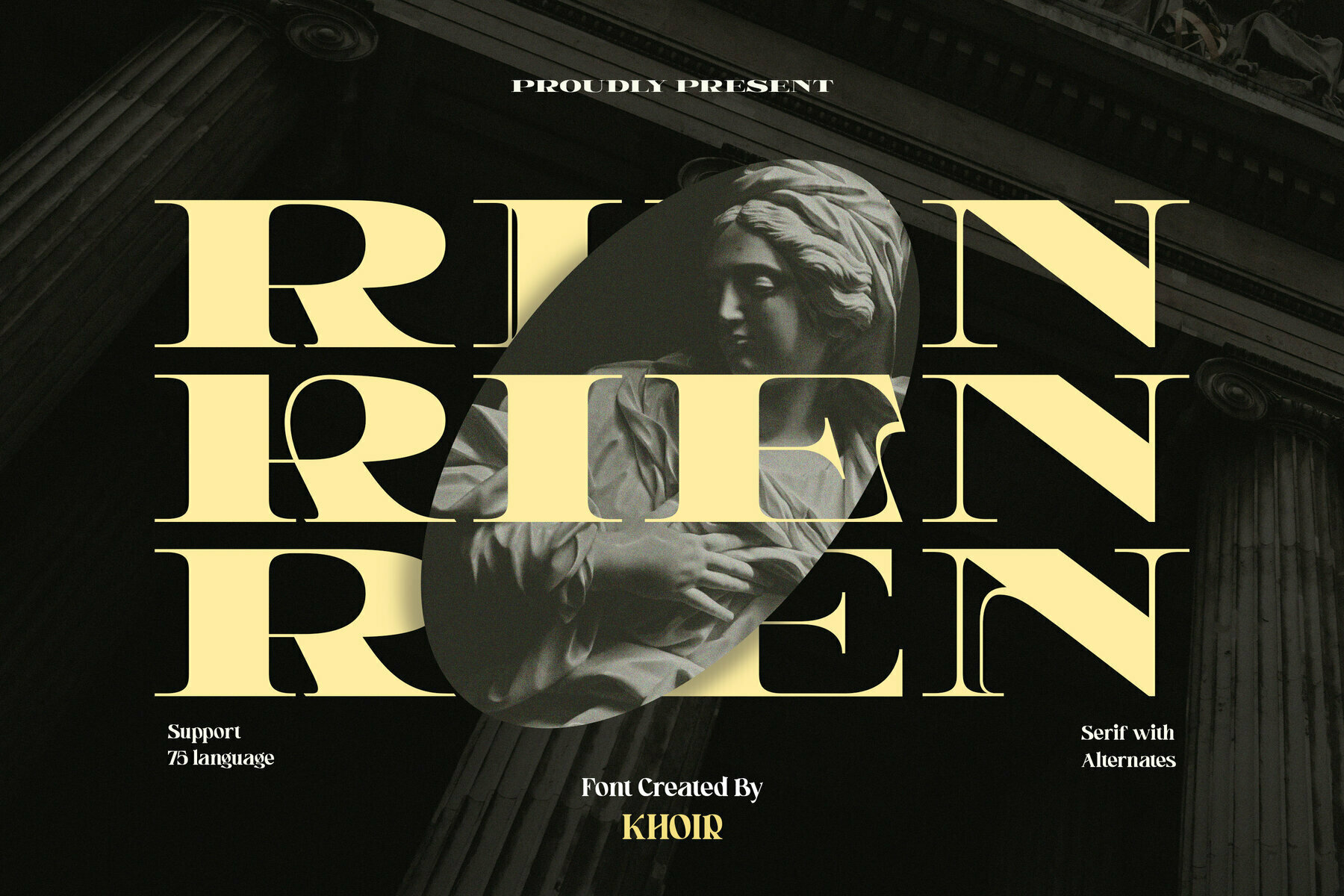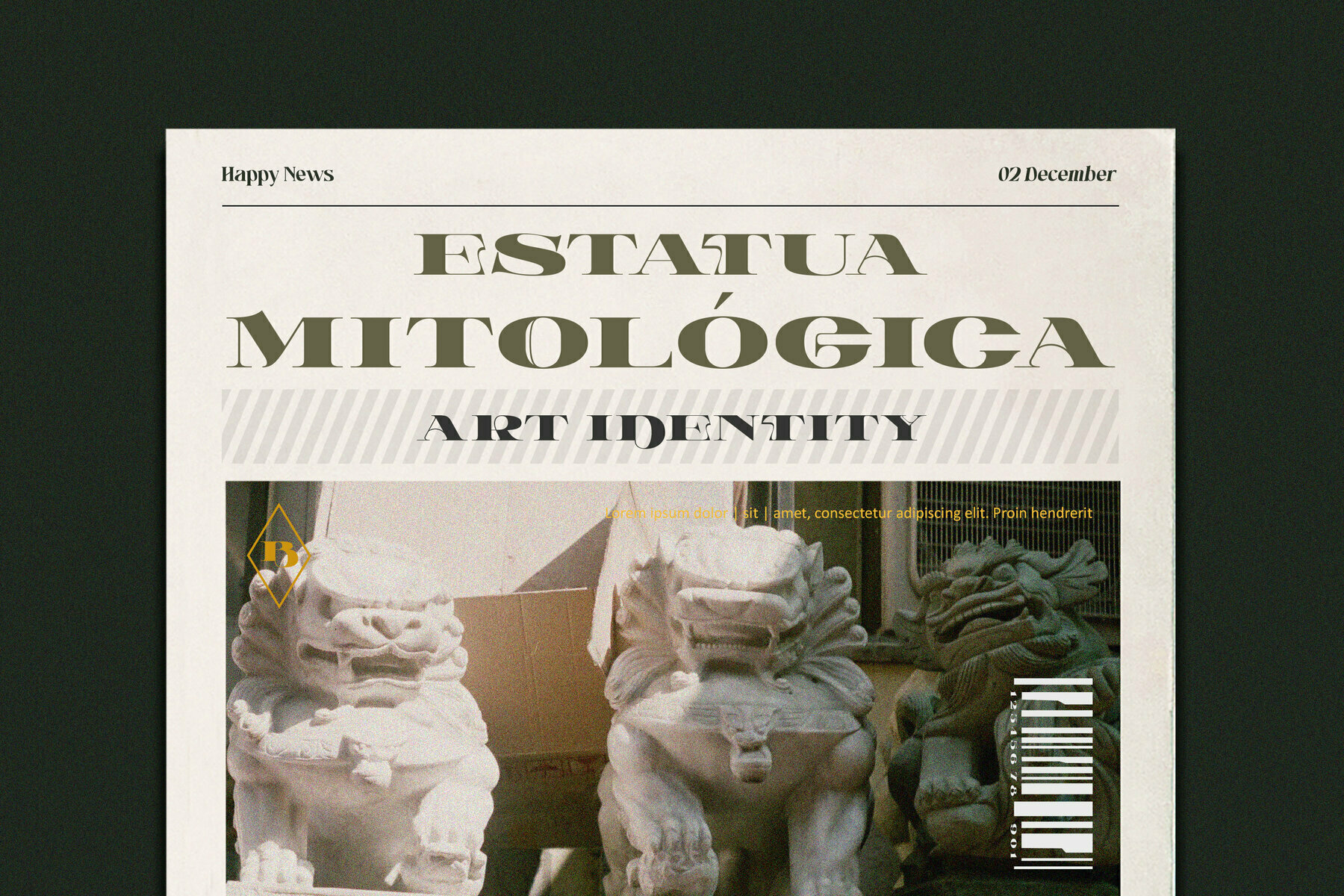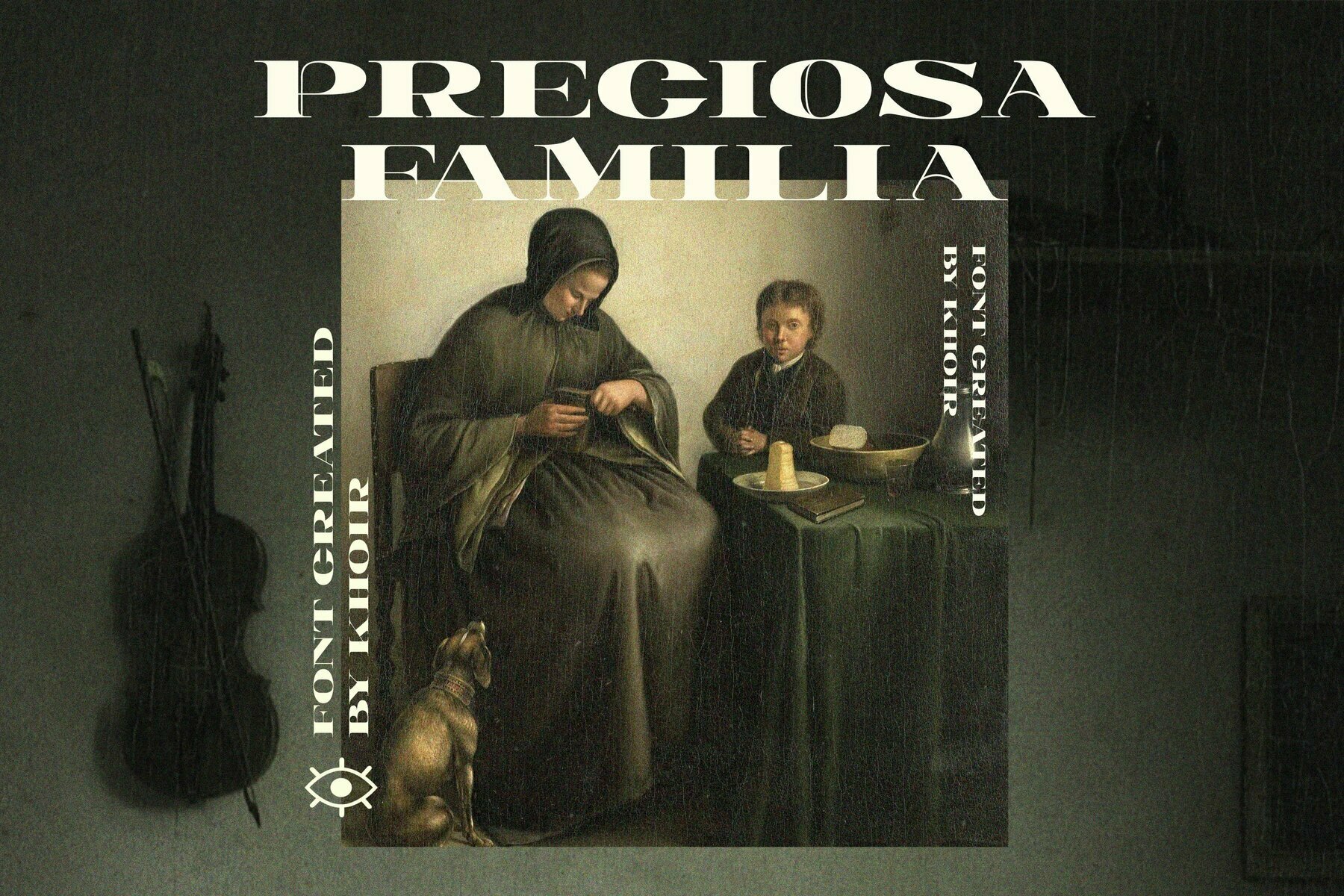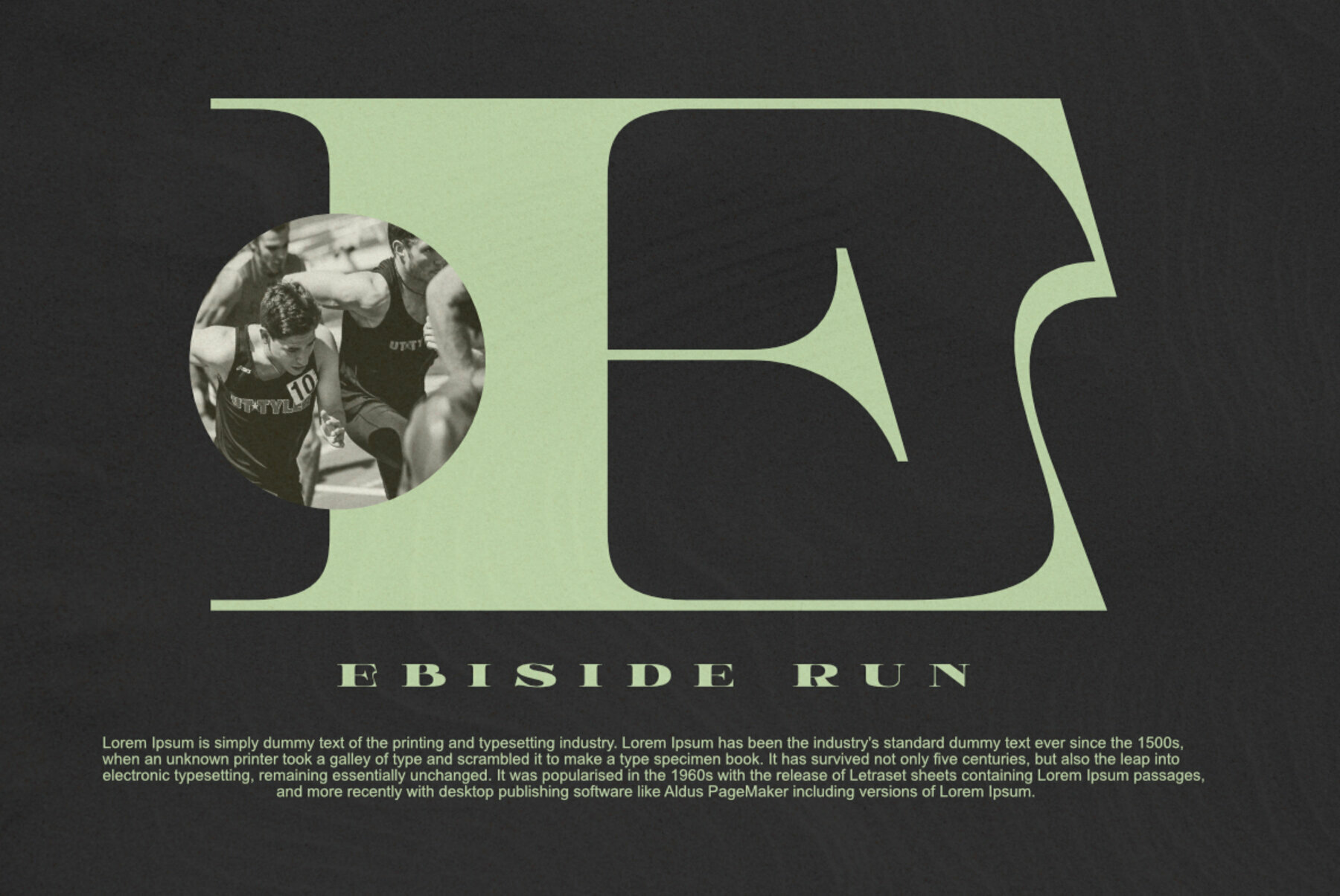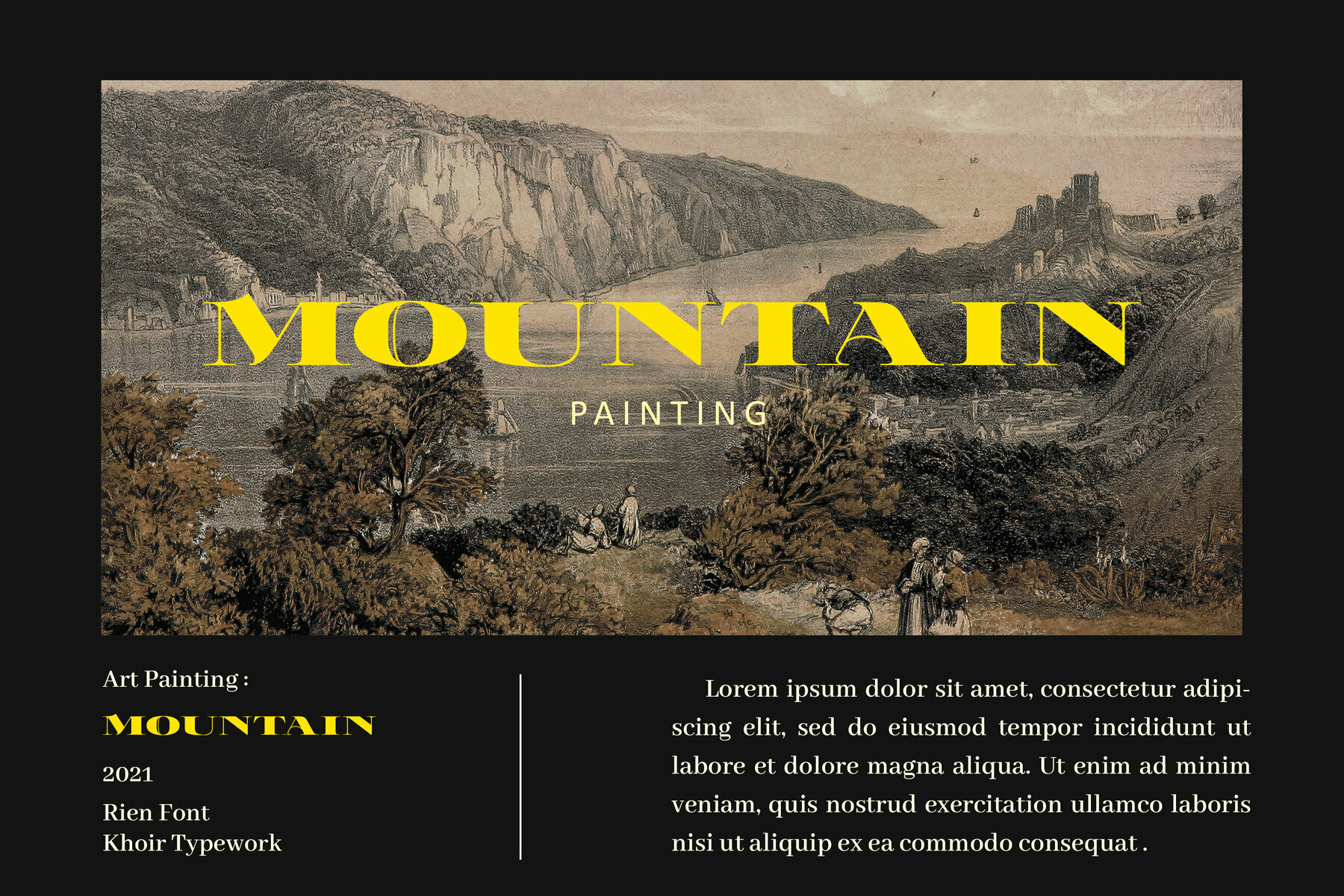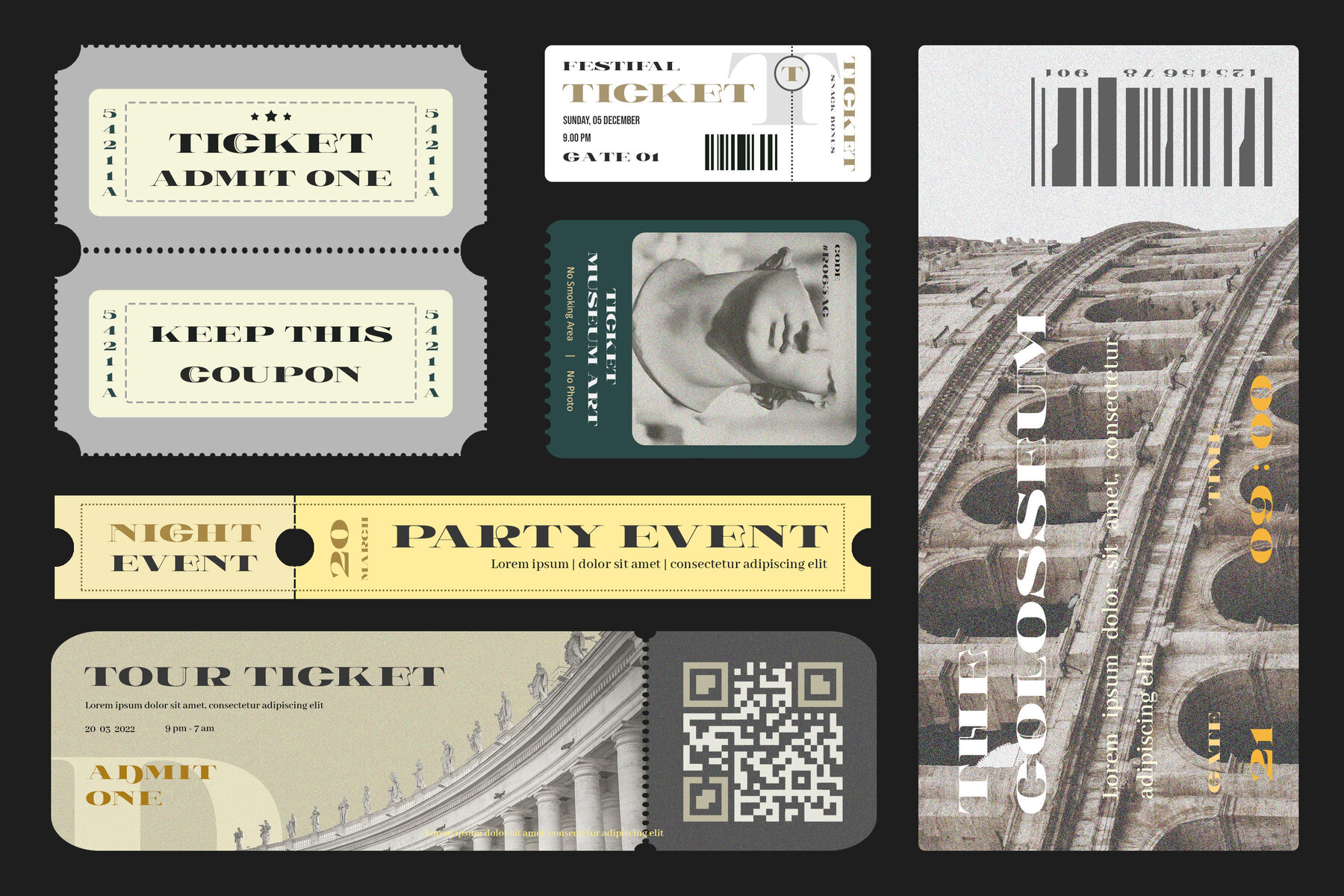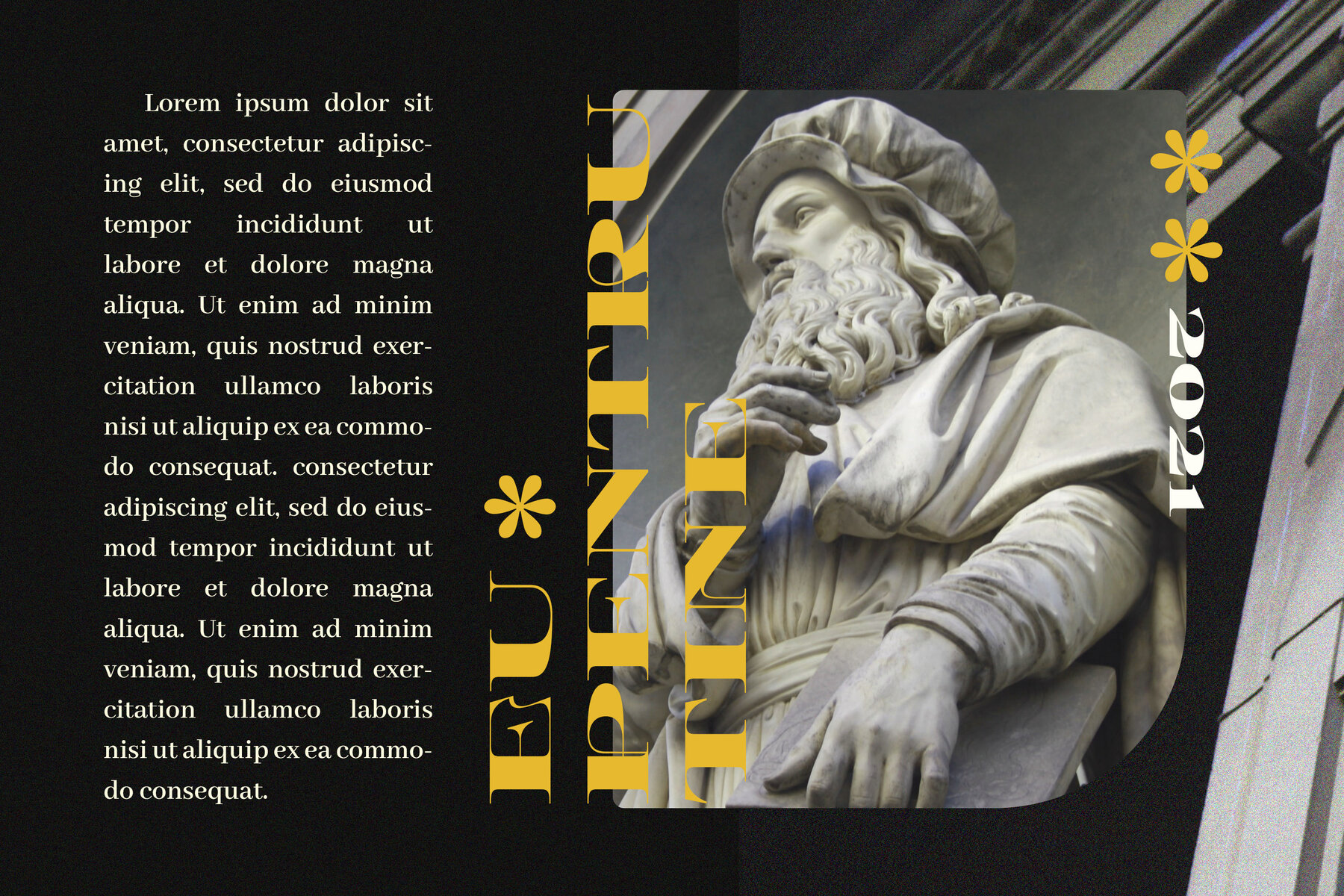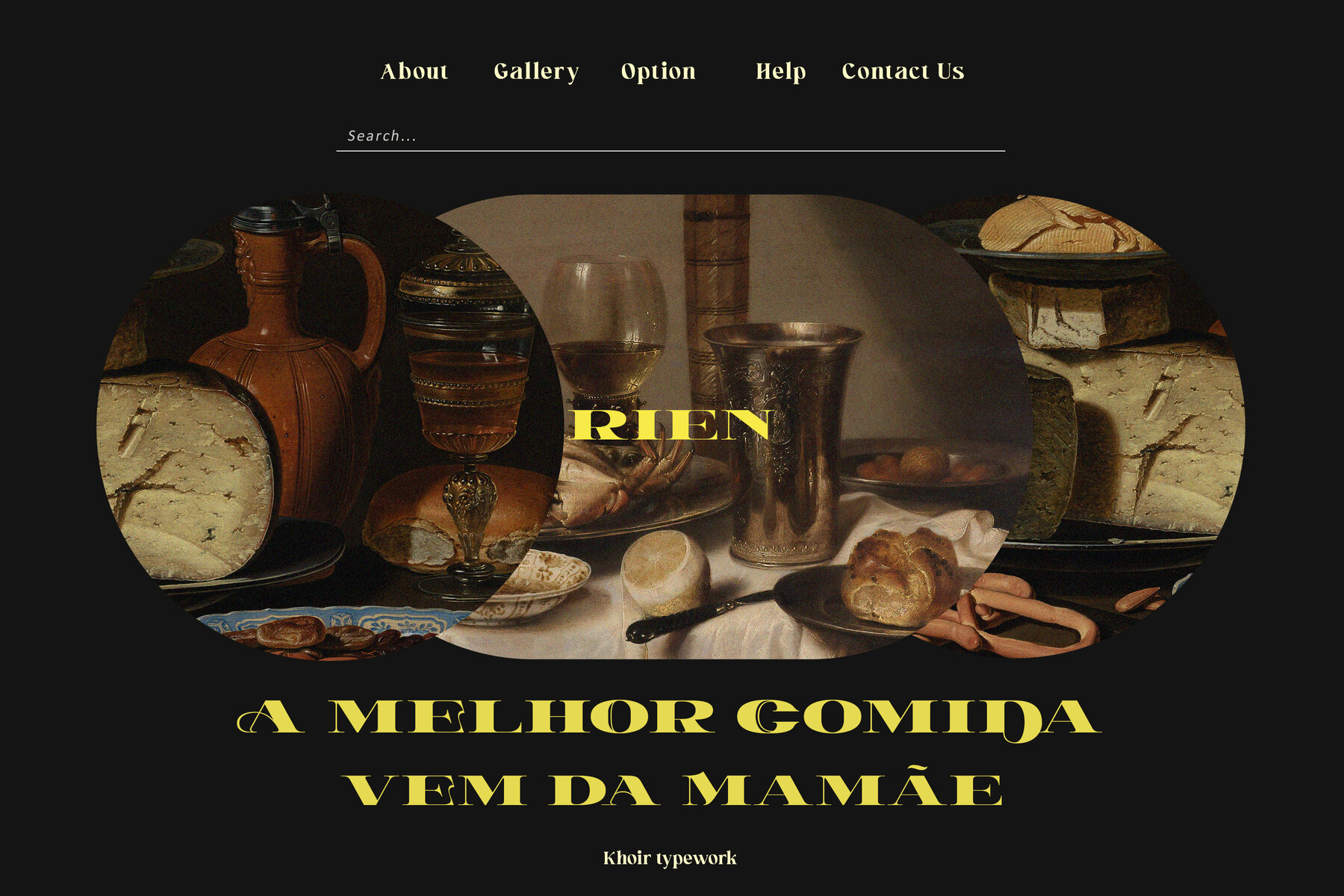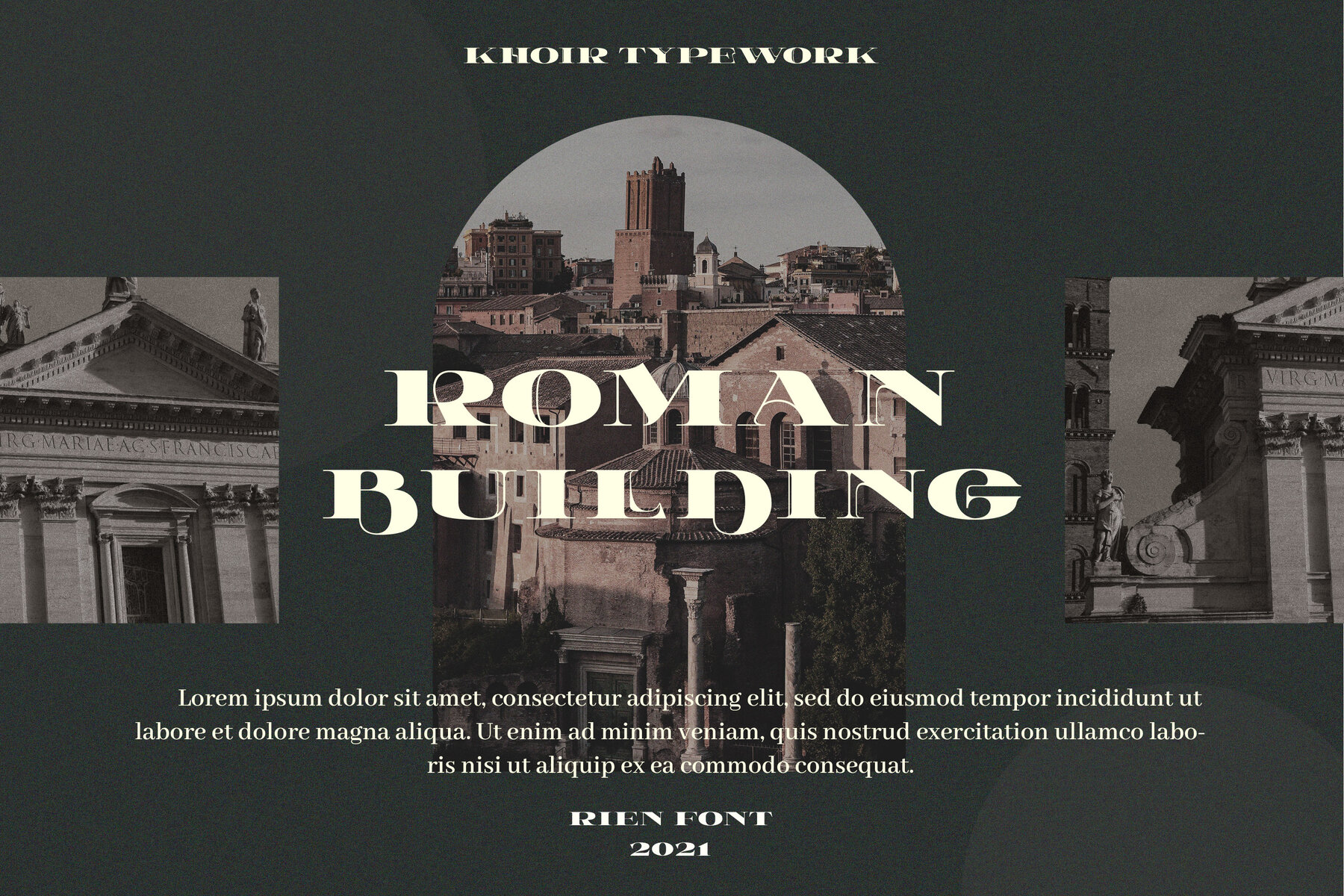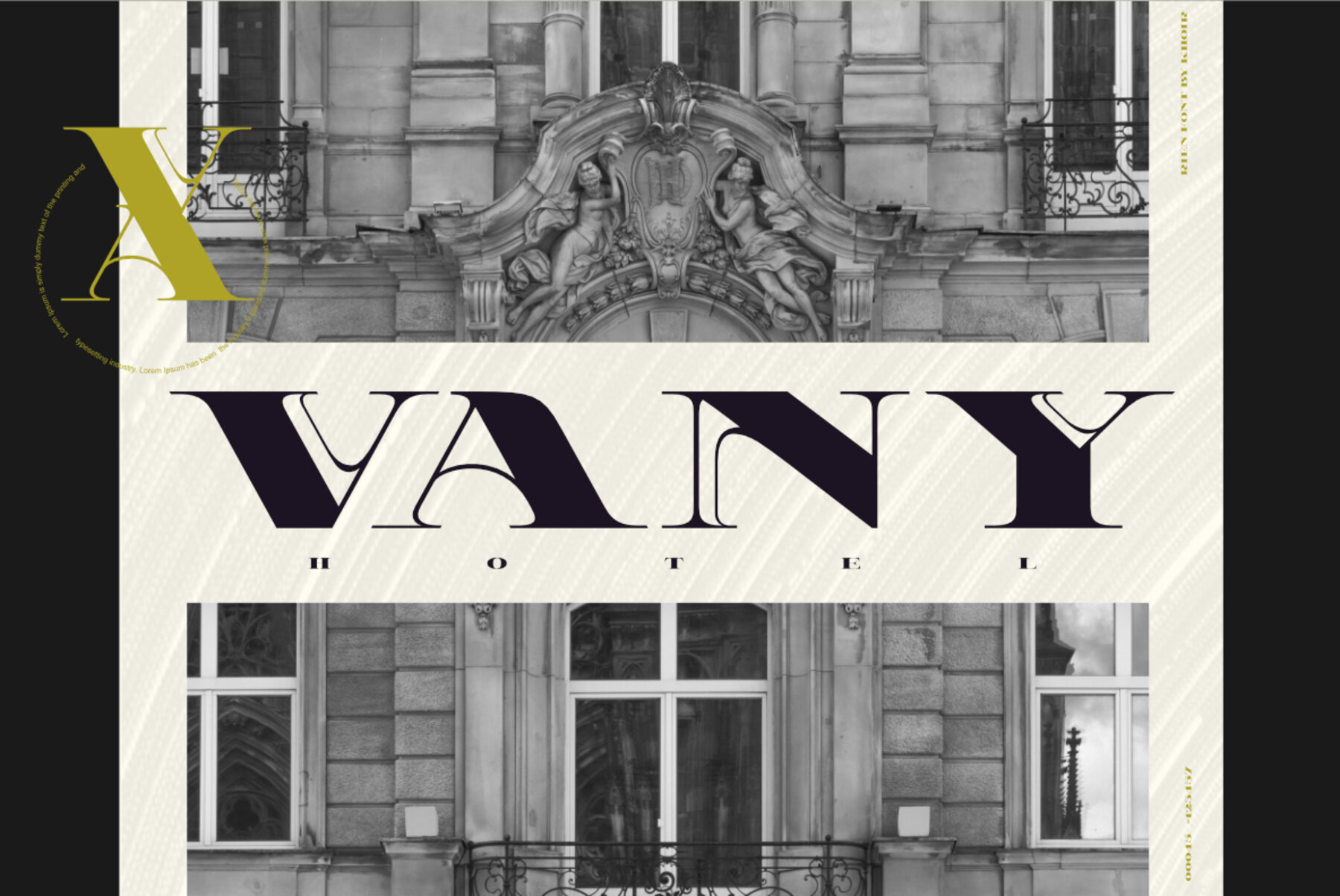
RIEN Font
RIEN Regular
RIEN presents itself as an elegant and versatile font, offering a unique touch that enhances the creativity of any project. Whether you're working on branding, editorial design, or digital interfaces, this typeface stands out as a sophisticated choice.RIEN: A Sophisticated Typeface with Unique Alternatives